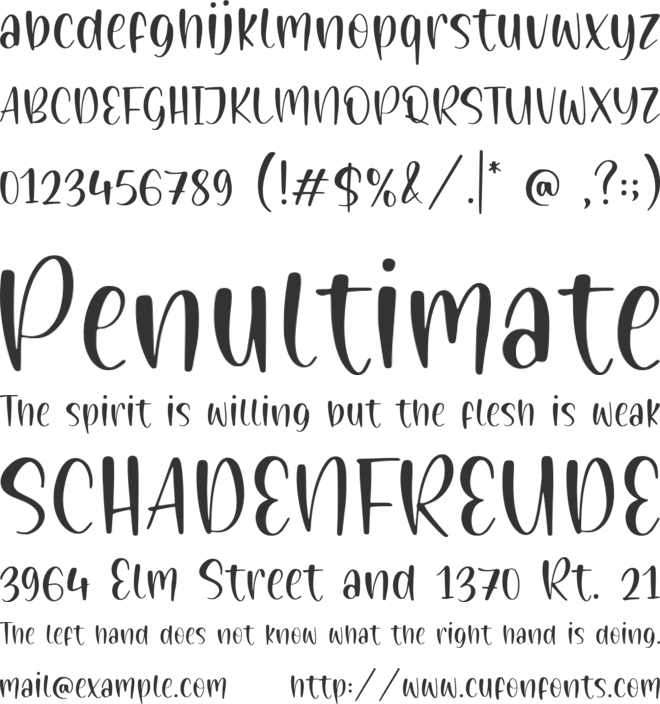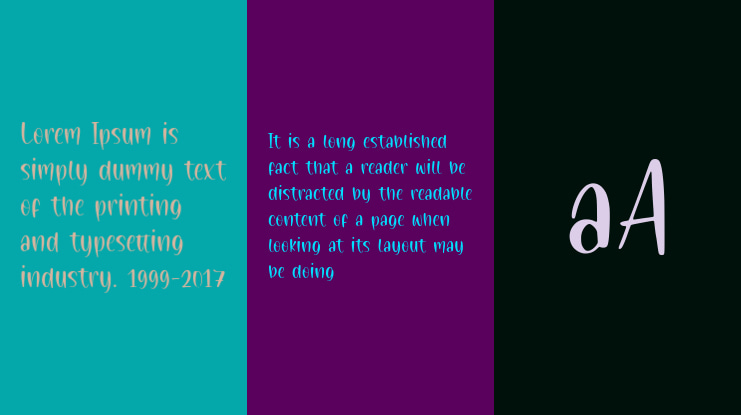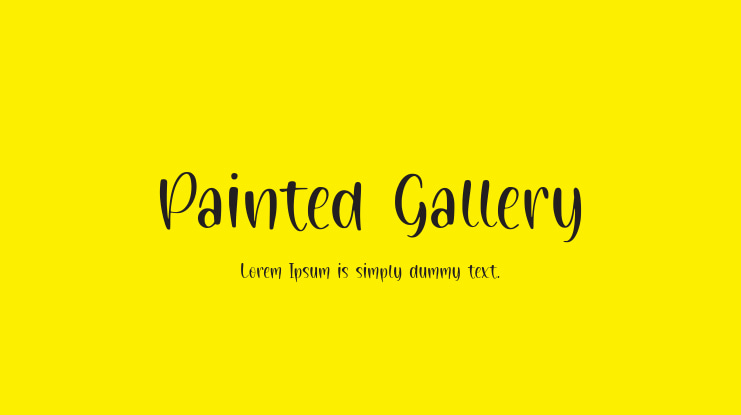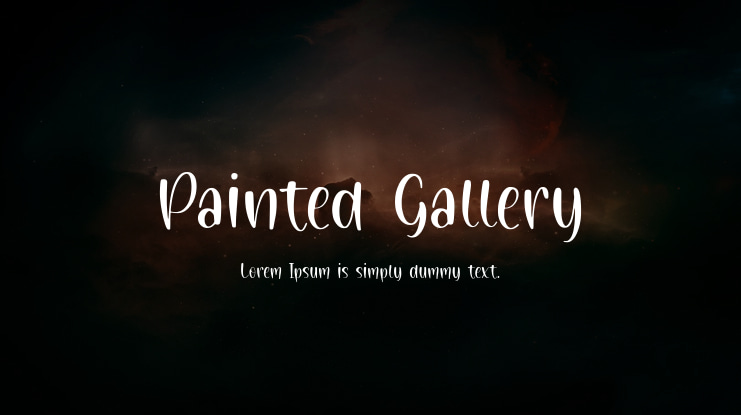
Painted Gallery Font
Proudly Present, Painted Gallery Font.
Painted Gallery is a Modern Handwritten Font.
Painted Gallery is perfect for product packaging, branding project, megazine, social media, wedding, or just used to express words above the background.